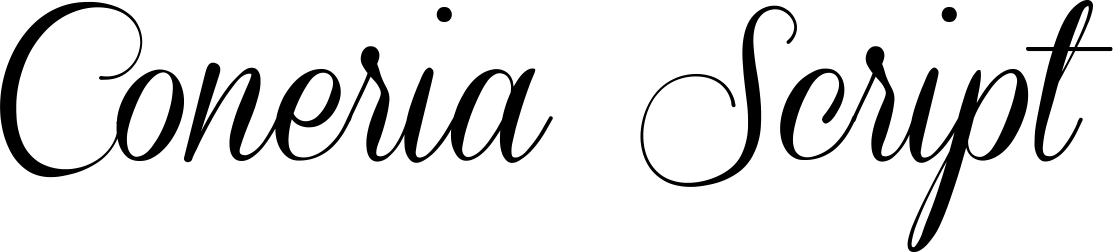
Coneria Script Font
Calligraphy font is what can bring playful and friendly vibes to your content and give more motivation to those who are interested in reading or writing. The Coneria Script font can do tricks in designing posters, greeting cards, logos, apparel, movies, and more with its thin paintbrush style. Two different styles of this cursive font are at hand to make your next typography stand out.